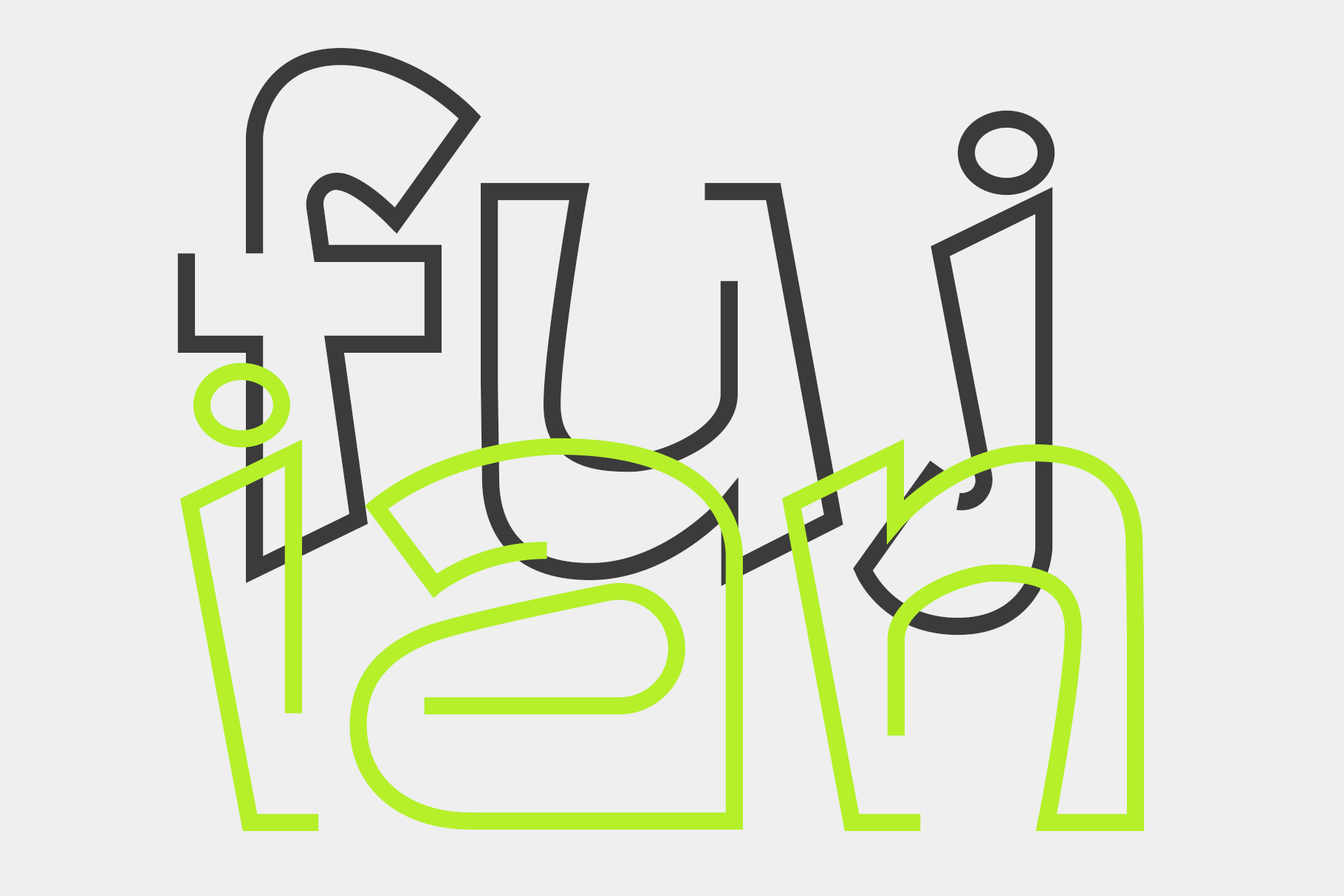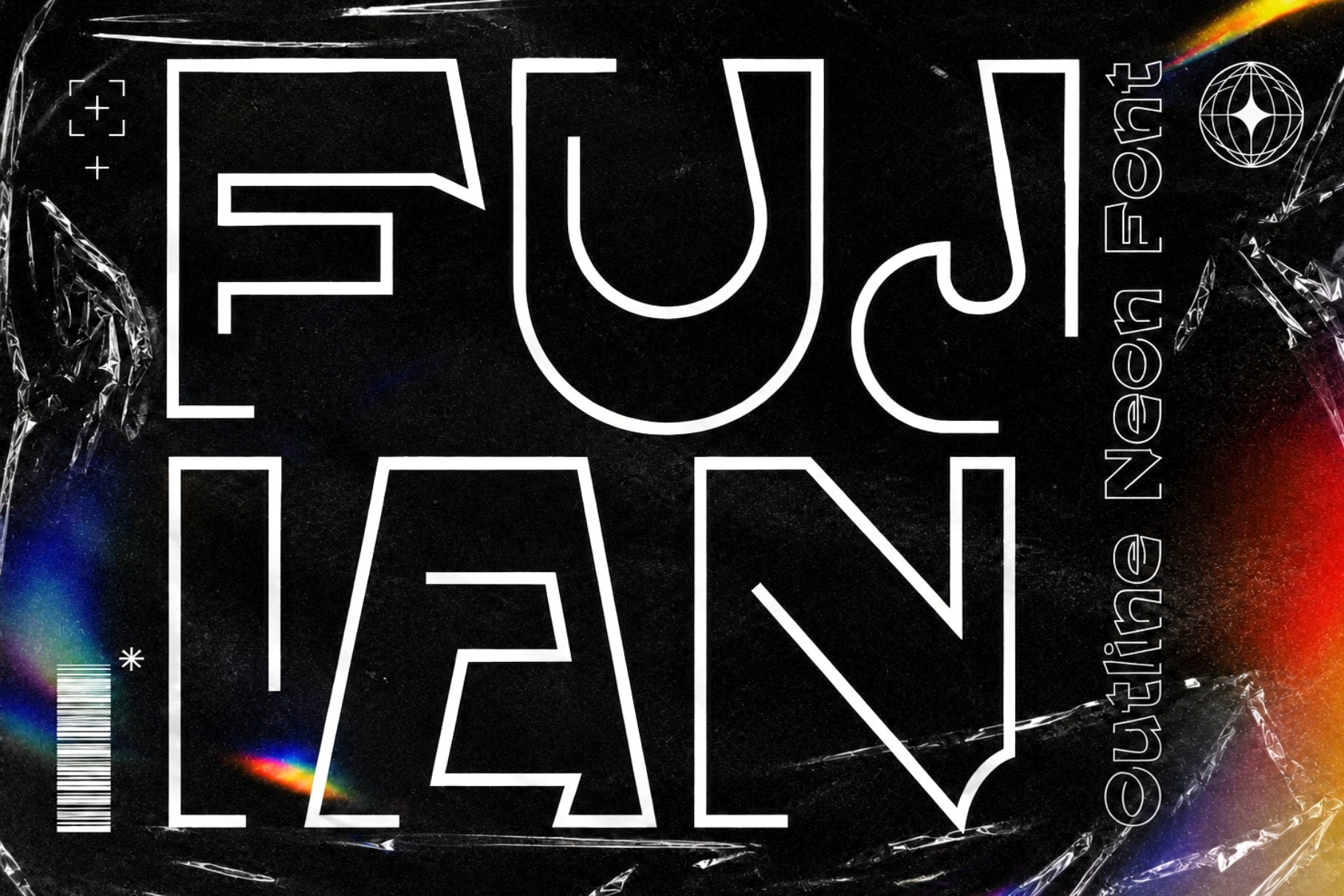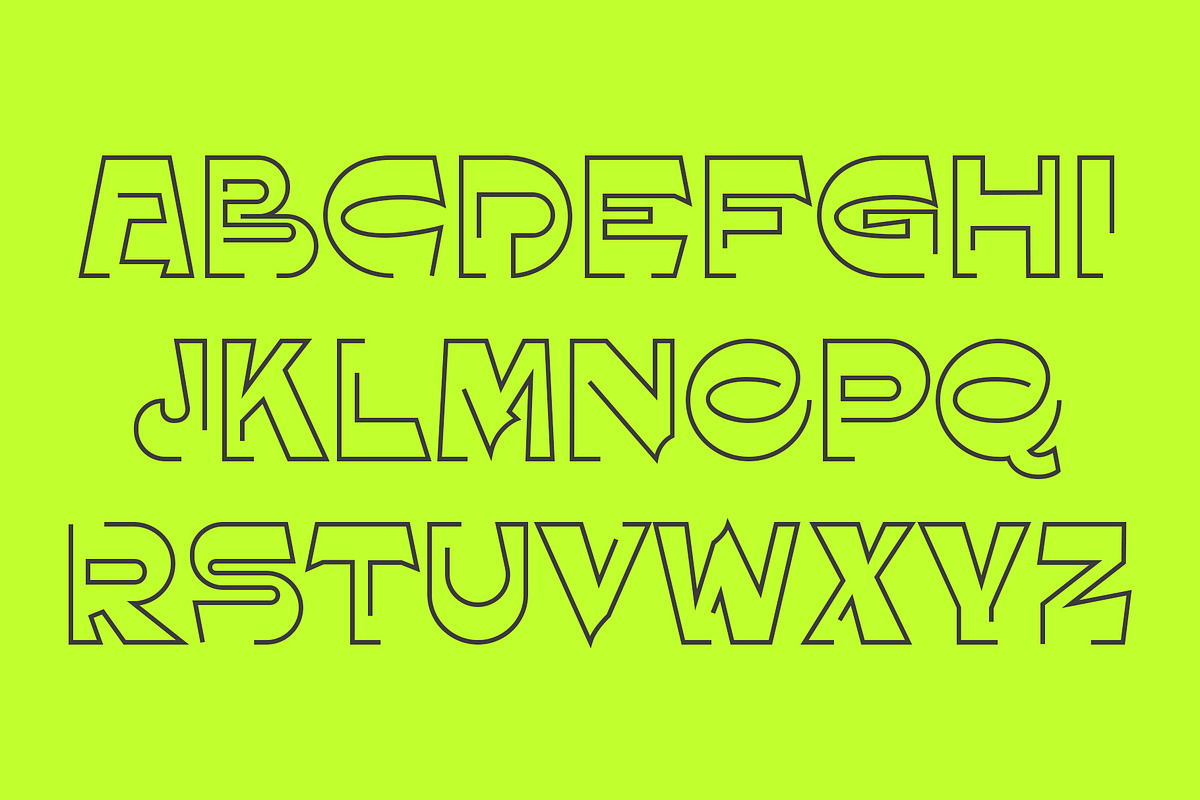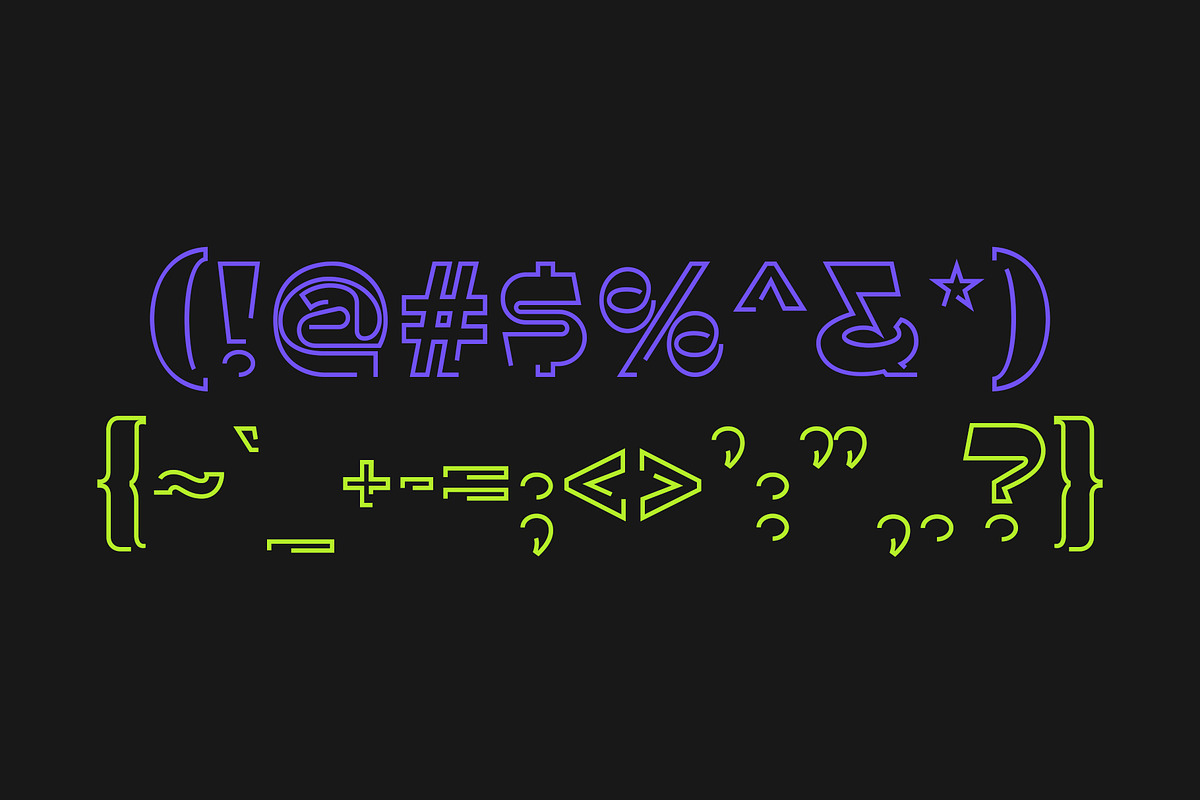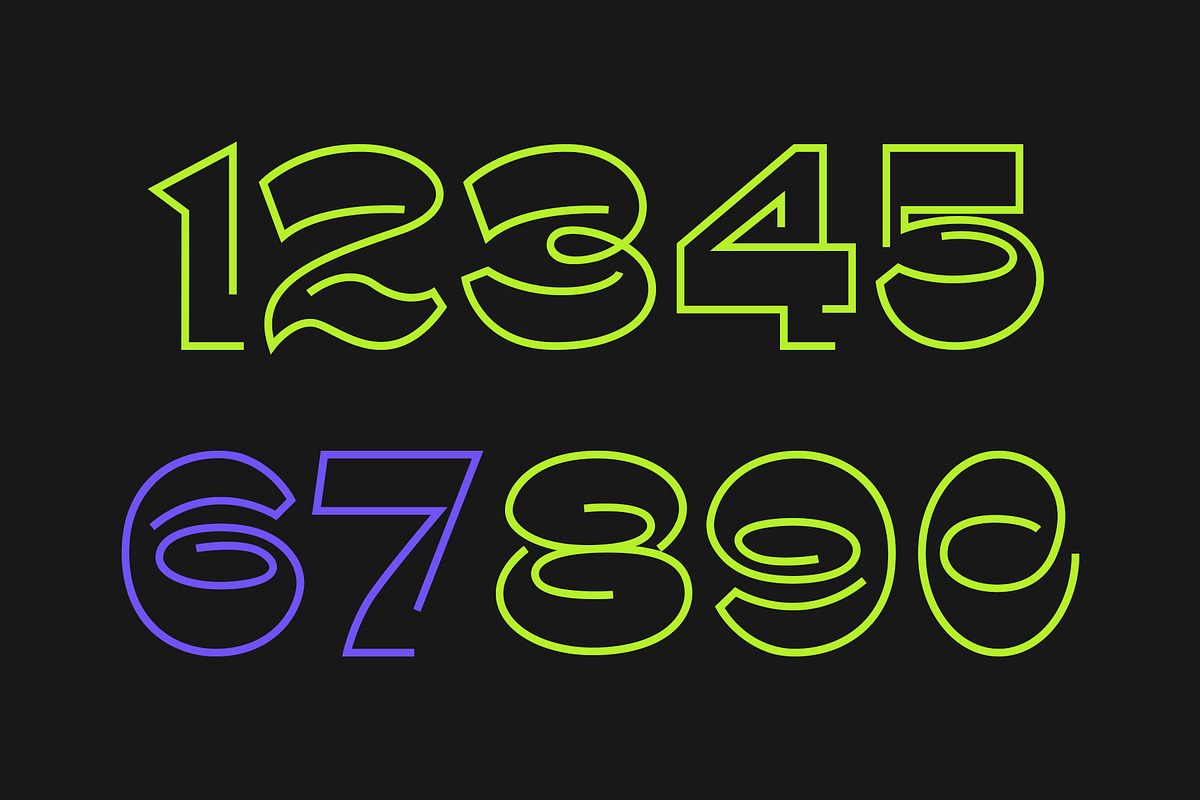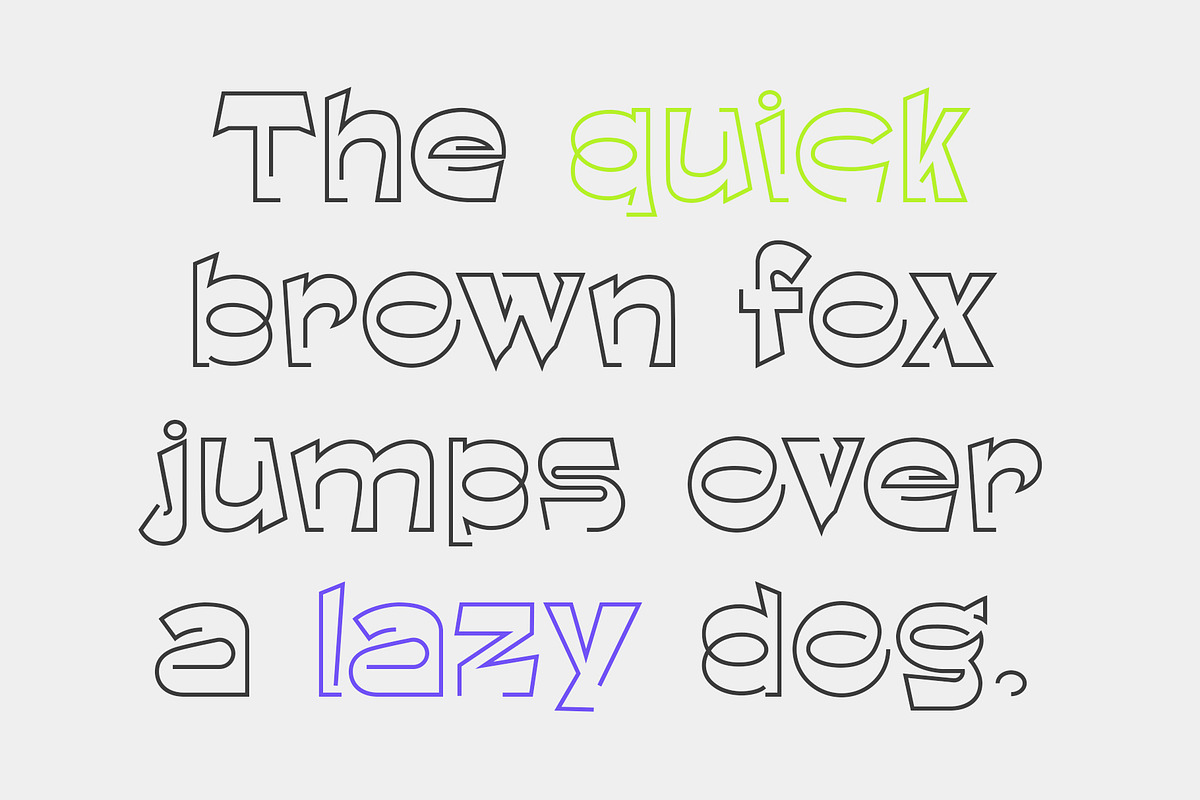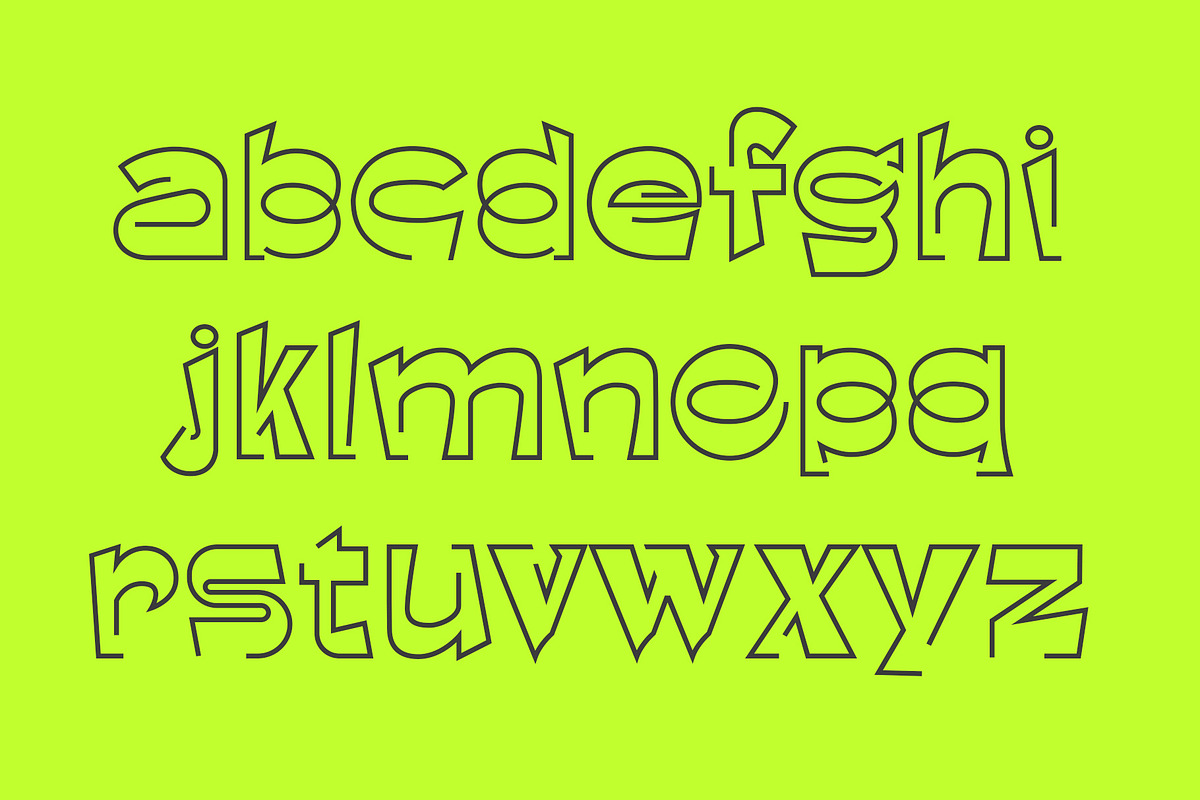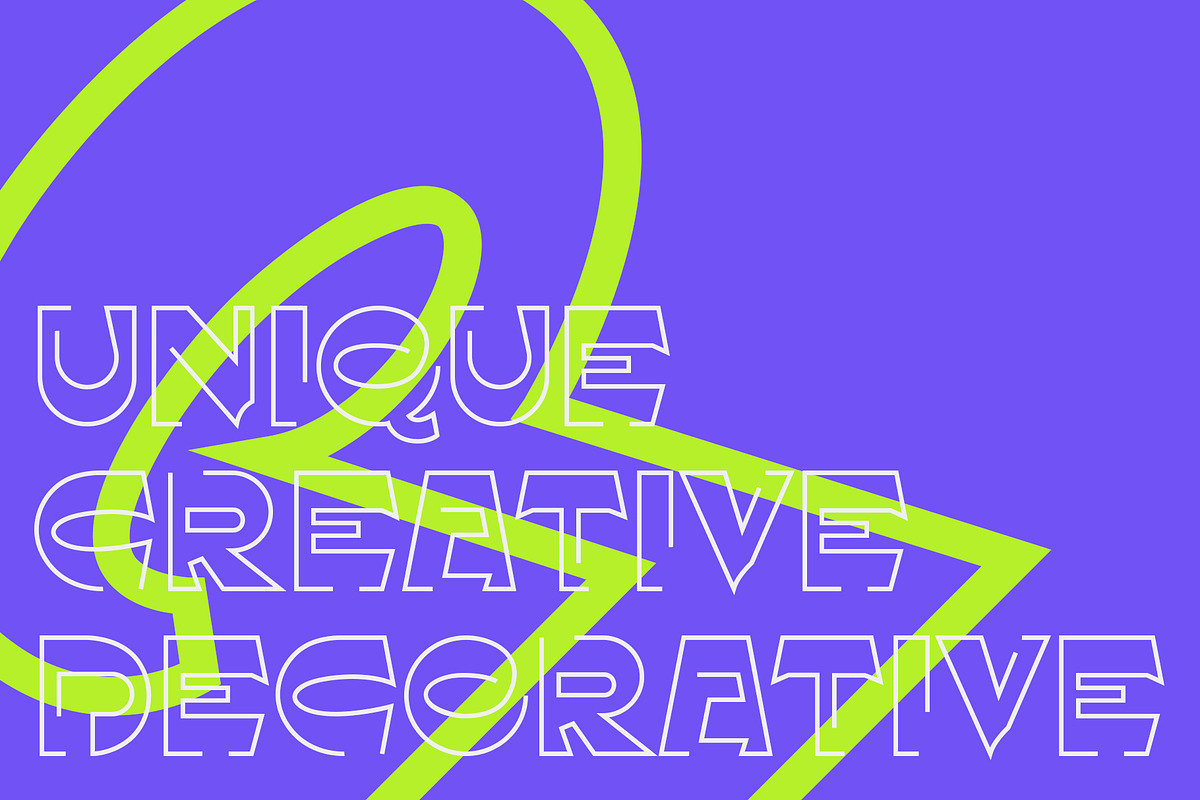
Fujian - Decorative Display Typeface
Fujian is a fresh decorative display typeface. The font is made of outlines and doesn't match any existing typographic style. It has upper & lower case characters, numbers, and punctuation. It's perfect for creative design projects that require an abstract typeface. Not only is Fujian eye-catching but it's also surprisingly legible. Use it today for your catchy headlines, branding, posters, flyers, books, web design, motion graphics, packaging, etc.